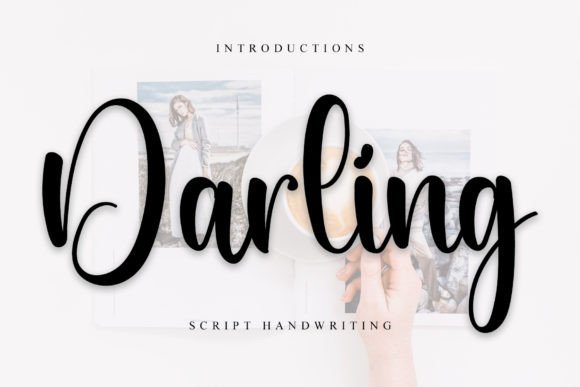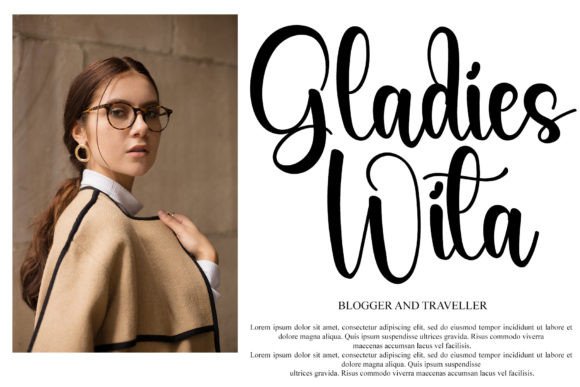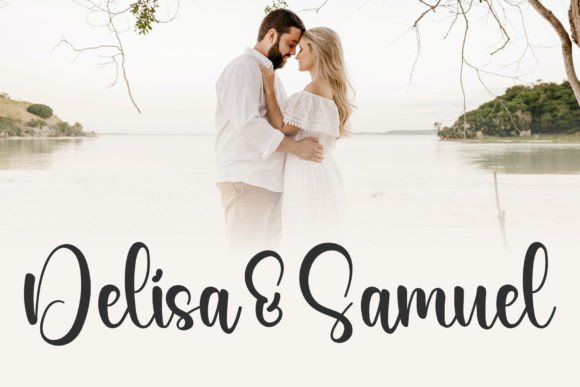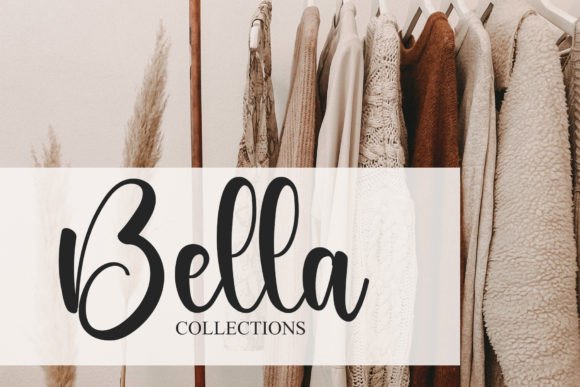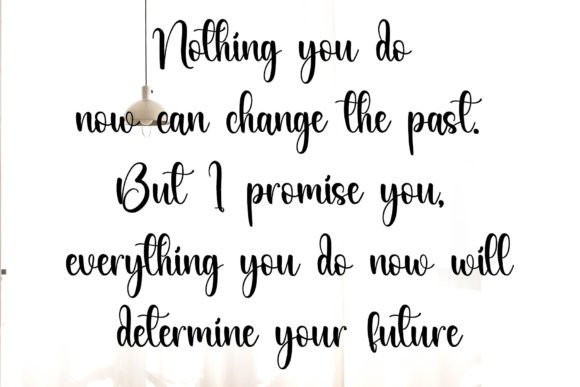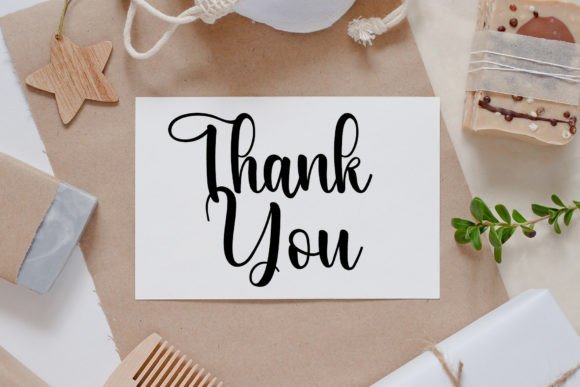
The Perfect Hand-Drawn Touch: Unleashing the Magic of Darling Font
There’s nothing quite like the thrill of bringing a creative idea to life. You’re brainstorming, sketching, and experimenting – and then, it happens. A spark of inspiration hits, and you know exactly what you need to take your project to the next level. For many designers, that missing piece is a font that perfectly captures the essence of their vision.
Enter Darling Font, a masterfully crafted display font that exudes a playful, handmade charm. This font is designed to add a touch of whimsy and personality to any design, making it the perfect addition to your creative toolkit. Whether you’re working on a branding project, creating a social media campaign, or designing a wedding invitation, Darling Font is sure to bring your ideas to life in a way that’s both unique and unforgettable.
Darling Font Key Features
- Size: 8,400 glyphs, covering a wide range of languages and characters, making it an ideal choice for multilingual projects.
- Unique Characteristics: Elegant and refined design, with subtle curves and flourishes, giving it a sophisticated and feminine touch.
- Font Weight: Multiple weights, including light, regular, bold, and black, providing flexibility for various design applications.
- Language Support: Supports Latin, Cyrillic, and Greek alphabets, as well as various special characters and symbols.
Darling Font Review
Overall, I’m quite impressed with the Darling Font. ✨ The script style is elegant and sophisticated, making it perfect for high-end brands or luxury products. The font is highly customizable, with various weights and styles available to suit different design needs. ✨ I particularly love the way it looks on business cards and invitation designs.
One of the standout features of the Darling Font is its excellent legibility. ✨ The letterforms are clear and easy to read, even at smaller font sizes. This makes it an excellent choice for body text or headings in print materials.
- ⚠️ The font may not be suitable for digital use, as it can be quite thin and may not display well on screens.
- ⚠️ Some users may find the font too ornate or over-the-top for certain design projects.
- ⚠️ The font’s script style may not be ideal for projects that require a more modern or edgy look.
Overall, I think the Darling Font is a great choice for designers who want to add a touch of luxury and sophistication to their projects. While it may have some limitations, its excellent legibility and customization options make it a versatile and effective font for a wide range of design applications.
For optimal results, pair Darling Font with a clean and simple design. Use it for headings and titles to create a visually appealing contrast. Experiment with different font sizes and colors to create a unique look.
Darling Font is perfect for creating elegant and sophisticated designs, such as:
- Business cards and brochures
- Magazine and newspaper headlines